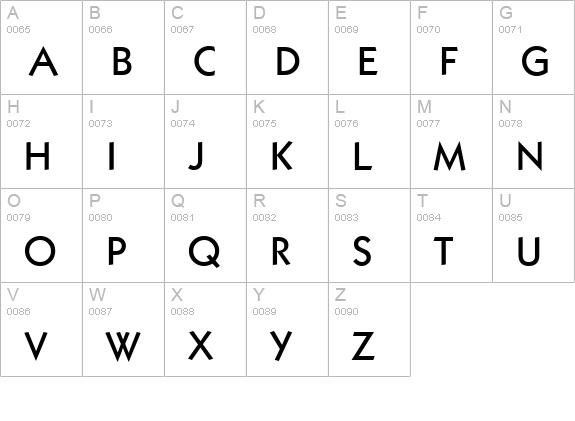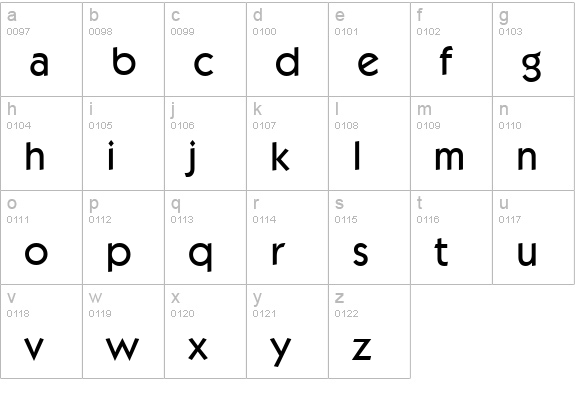
K792-Geometrical-Medium-Regular is a balanced, medium-weight variant in the K792 typeface family \xE2\x80\x94 well suited to sub-headlines, navigation, and balanced editorial work.
K792-Geometrical-Medium-Regular is a sleek and modern font that combines geometric shapes with a medium weight to create a versatile typeface suitable for a wide range of design projects. Its clean lines and balanced proportions make it perfect for both headings and body text, adding a touch of sophistication to any design. This font is available for free download at FontsMarket.com, making it easily accessible to designers looking to add a touch of contemporary style to their work. Whether you're working on a website, poster, or branding project, K792-Geometrical-Medium-Regular is sure to make a bold statement while maintaining readability and clarity. With its timeless appeal and professional aesthetic, this font is a valuable addition to any designer's toolkit. Download K792-Geometrical-Medium-Regular today and elevate your designs with its sleek and modern look.